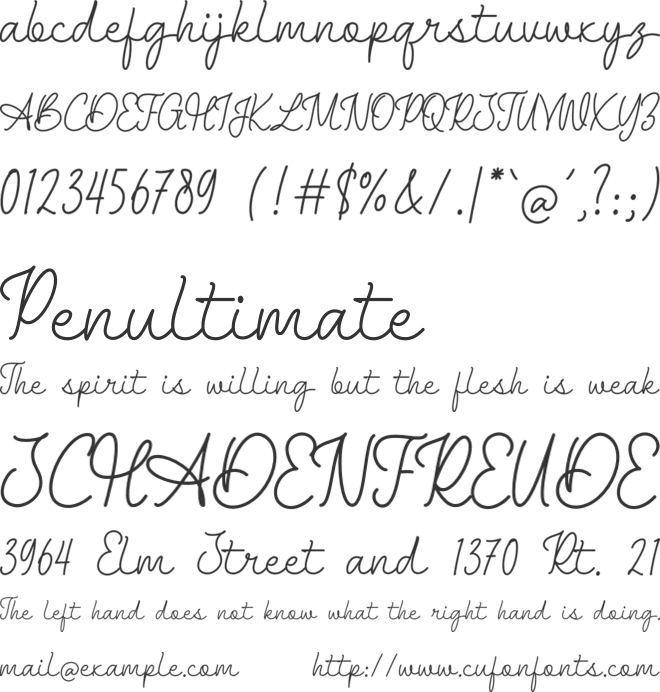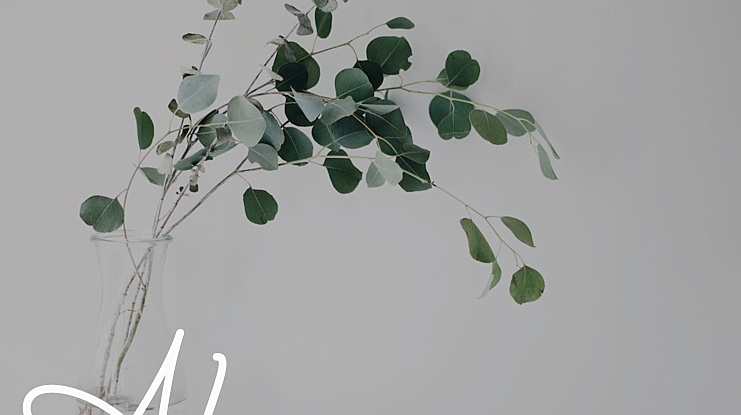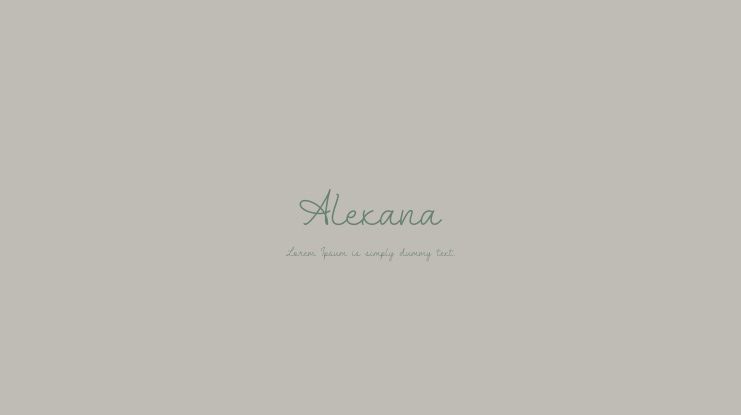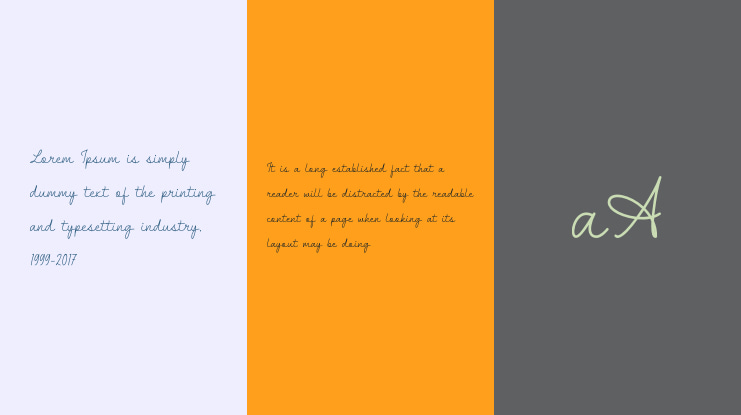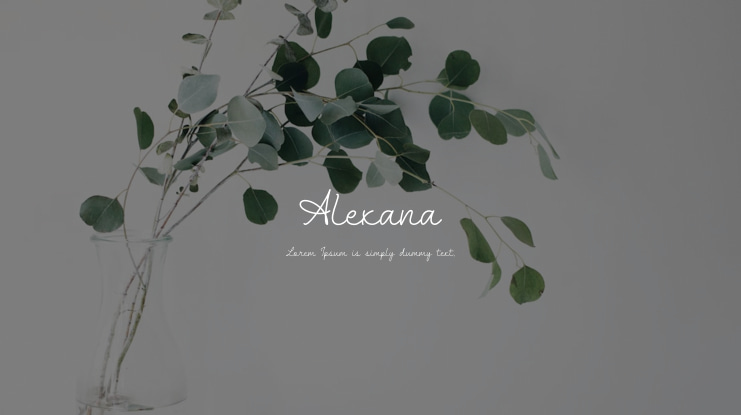
Alexana Font
Introducing “Alexana” – The Epitome of Elegance and Simplicity
Alexana is a sophisticated and versatile font that embodies the essence of modernity and refinement. With its clean lines and balanced proportions, this typeface exudes a timeless charm that is perfect for a wide range of design projects. The letterforms of Alexana are meticulously crafted to ensure legibility and clarity in any application.